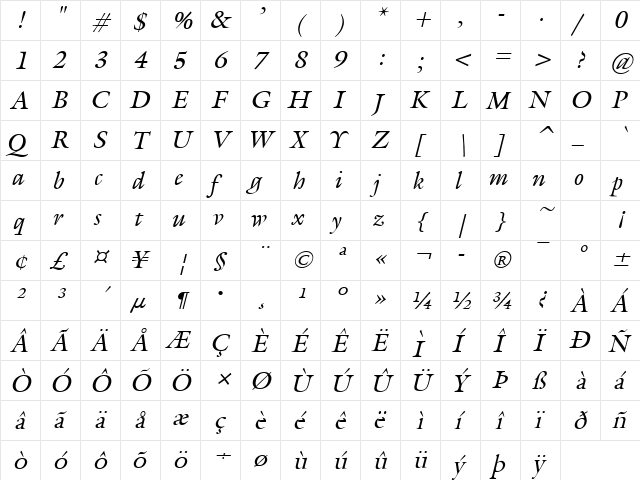
Joulliard Italic Font Preview
Joulliard Italic
Design Context for Joulliard Typeface
Joulliard is a composed and adaptable typeface that performs quietly and consistently across a wide range of design contexts. The slanted form adds forward momentum and visual energy.